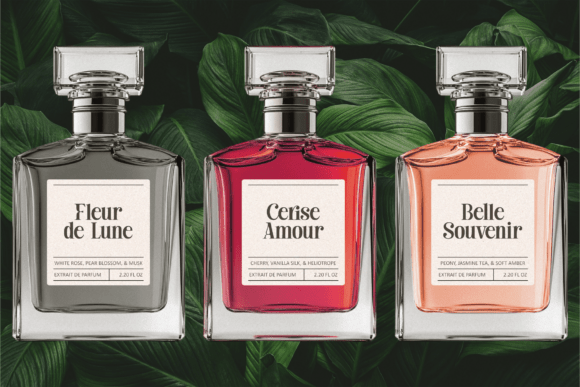
Eristone Font: Elevate Your Design with Timeless Elegance
In the world of typography, few fonts manage to strike a balance between classic charm and modern versatility. Eristone Font is one such exceptional typeface that embodies beauty and elegance in every curve, making it an ideal choice for businesses and designers looking to create sophisticated branding, stylish logos, editorial designs, and more.
Refined Letterforms and Graceful Details
Eristone Font boasts refined letterforms and graceful details that set it apart from other serif fonts. Its carefully crafted curves and lines create a luxurious and professional look, perfect for designs that require a touch of sophistication. Whether used in large headlines or delicate body text, Eristone Font delivers a consistent and high-end feel that elevates any design project.
Endless Design Possibilities
The versatility of Eristone Font makes it suitable for a wide range of design applications. Some of the most popular uses include:
- Sophisticated branding: Create a lasting impression with Eristone Font’s classic charm and modern elegance.
- Stylish logos: Use Eristone Font to craft a unique and memorable logo that reflects your brand’s personality.
- Editorial designs: Add a touch of sophistication to your publications with Eristone Font’s refined letterforms and elegant details.
- Invitations: Make a statement with Eristone Font’s luxurious and professional look, perfect for formal events and special occasions.
The Benefits of Serif Typography
Sans-serif fonts have their place, but serif fonts like Eristone offer a unique set of benefits that can elevate your design:
- Improved readability: Serif fonts are often easier to read, especially in large bodies of text.
- Enhanced elegance: Serif fonts add a touch of sophistication and luxury to any design.
- Timeless appeal: Serif fonts like Eristone have a classic charm that never goes out of style.
Eristone Font Specifications
Here are some key specifications of Eristone Font:
- Font family: Eristone
- Font style: Serif
- Weight: Light, Regular, Medium, Bold
- Character set: Extended Latin
Design Tips for Using Eristone Font
To get the most out of Eristone Font, follow these design tips:
- Pair with contrasting fonts: Combine Eristone Font with a sans-serif font for a striking contrast.
- Experiment with sizes: Use Eristone Font in a range of sizes to create visual hierarchy and emphasis.
- Pay attention to spacing: Ensure adequate spacing between lines and letters to maintain readability.
Eristone Font is a timeless serif font that embodies beauty and elegance in every curve. Its refined letterforms, graceful details, and classic charm make it an ideal choice for businesses and designers looking to create sophisticated branding, stylish logos, editorial designs, and more. With its modern versatility and luxurious feel, Eristone Font is sure to elevate your design projects and leave a lasting impression.